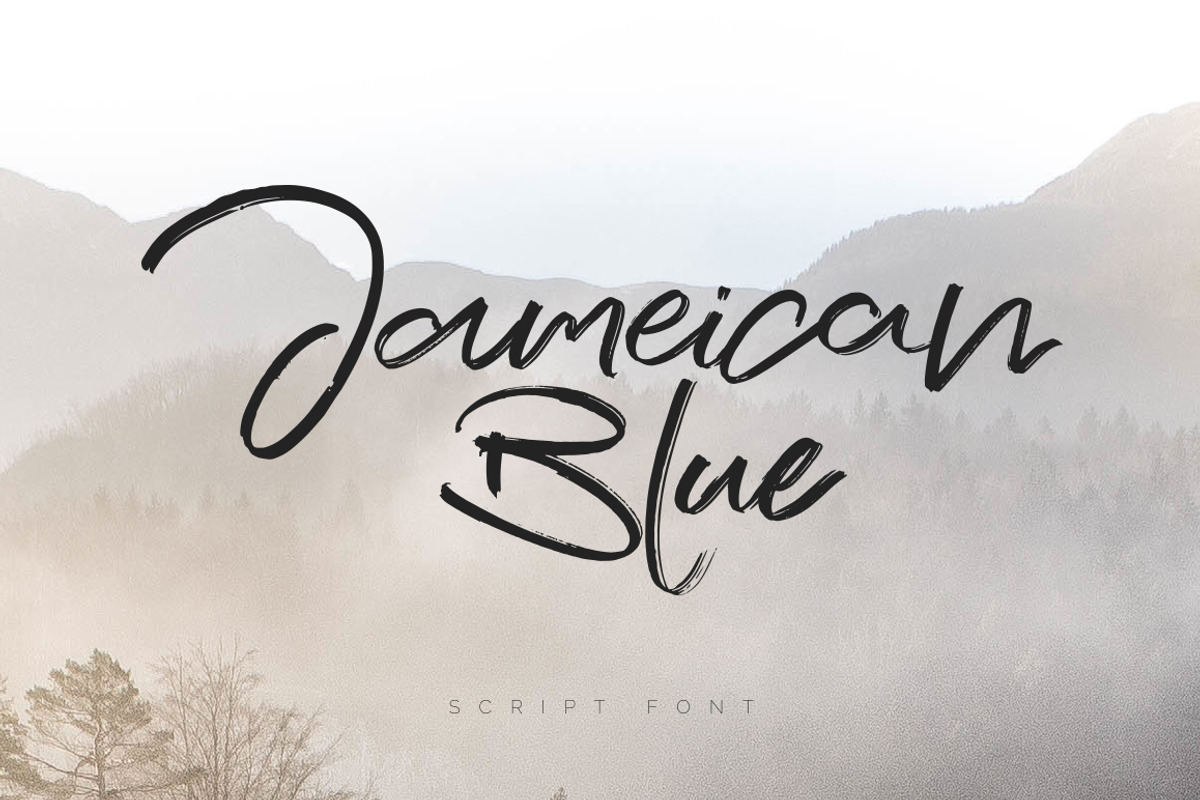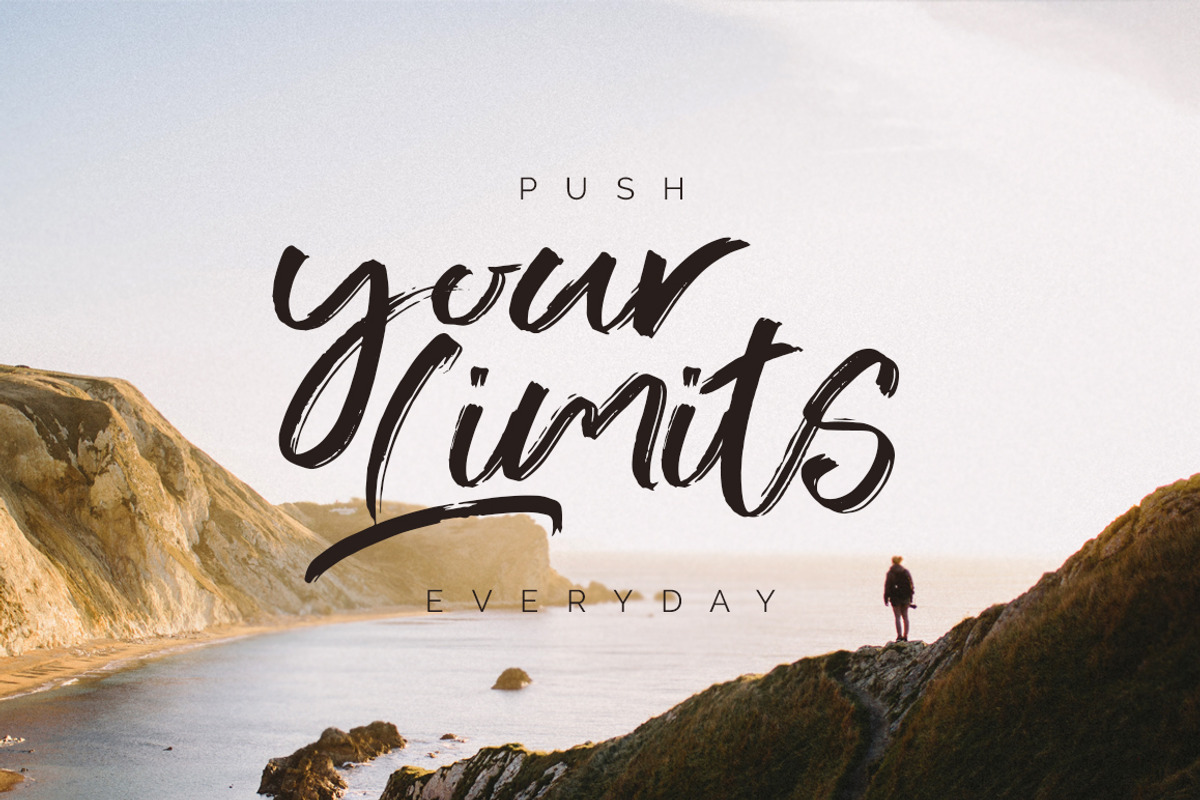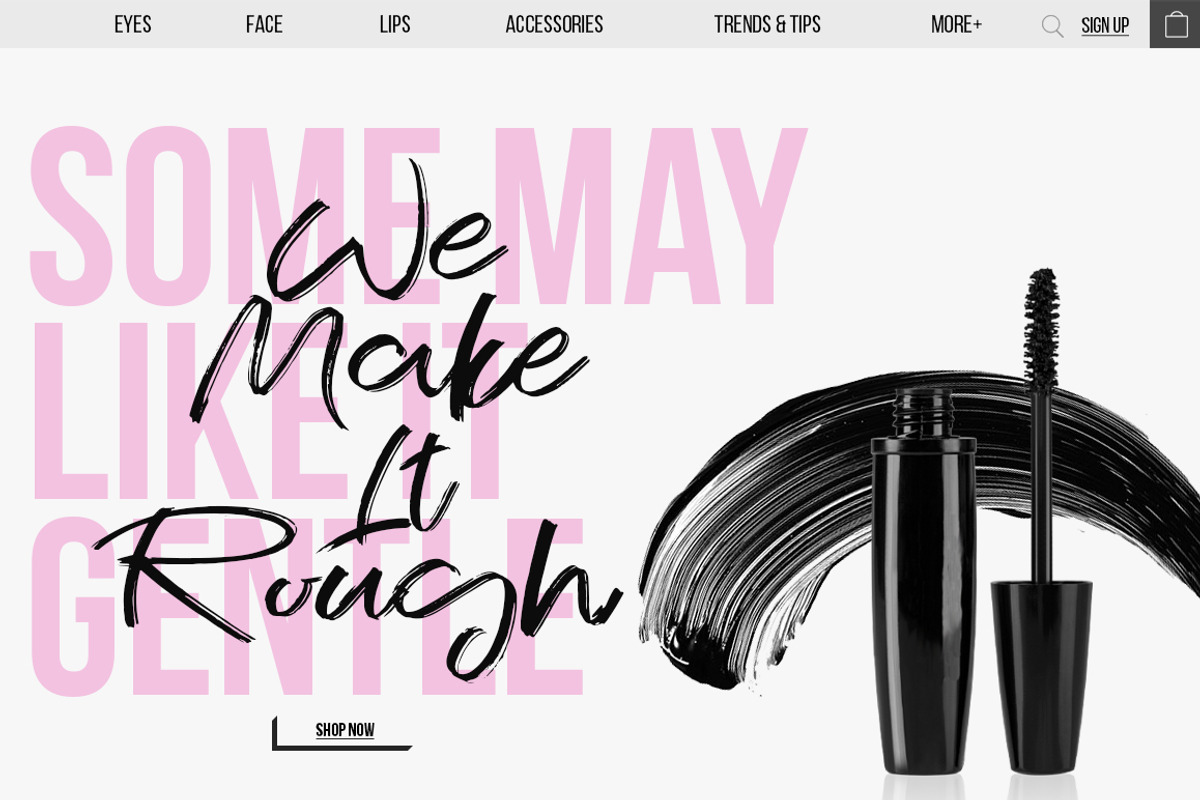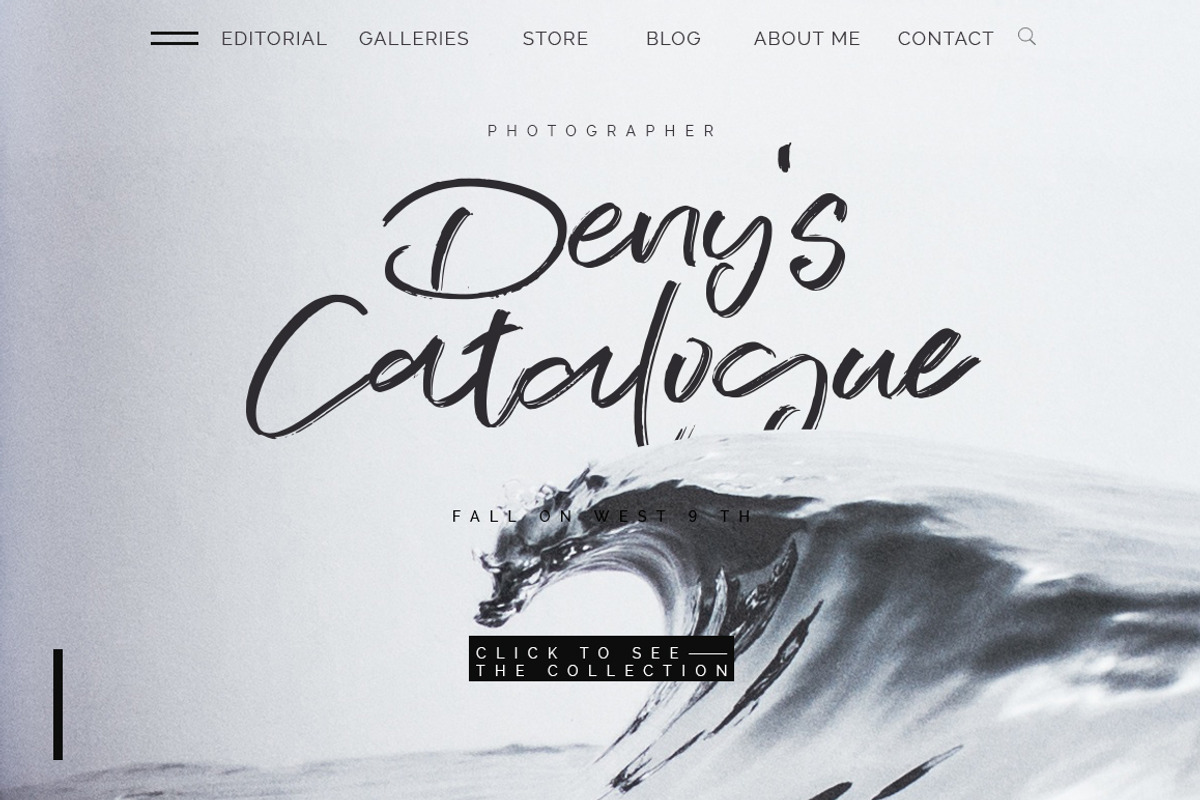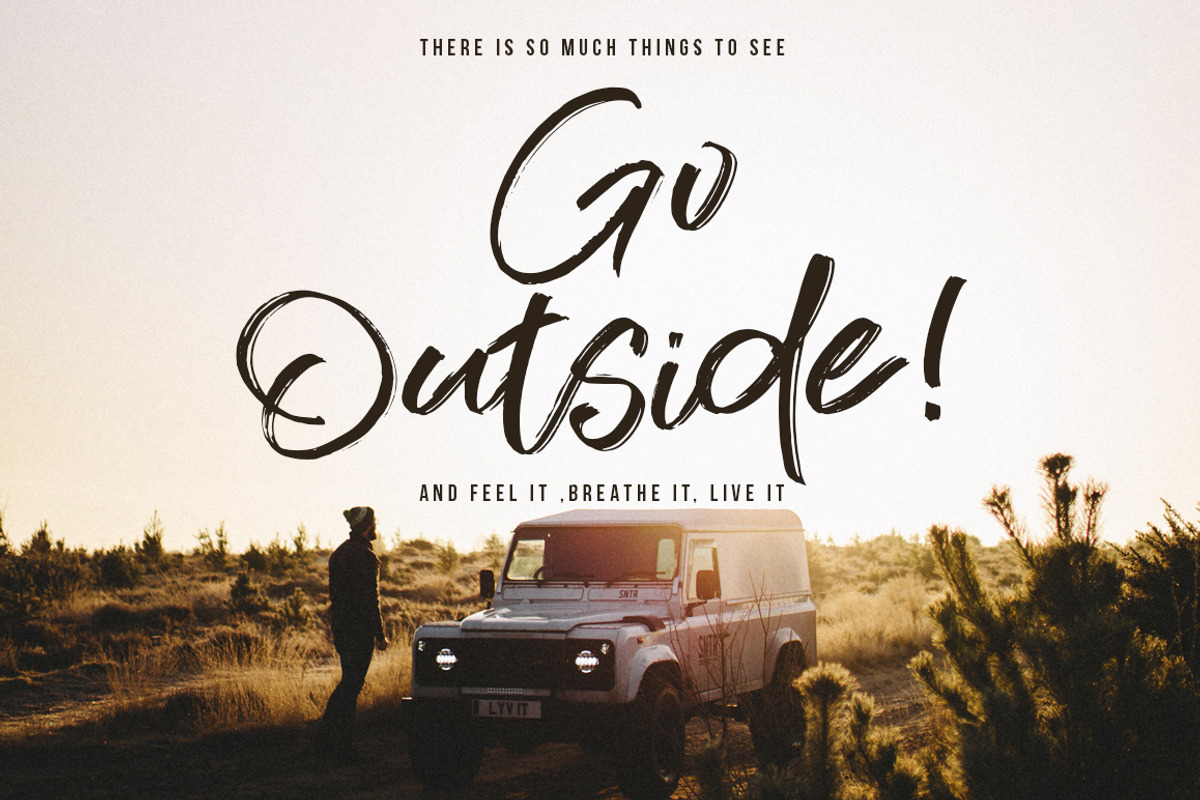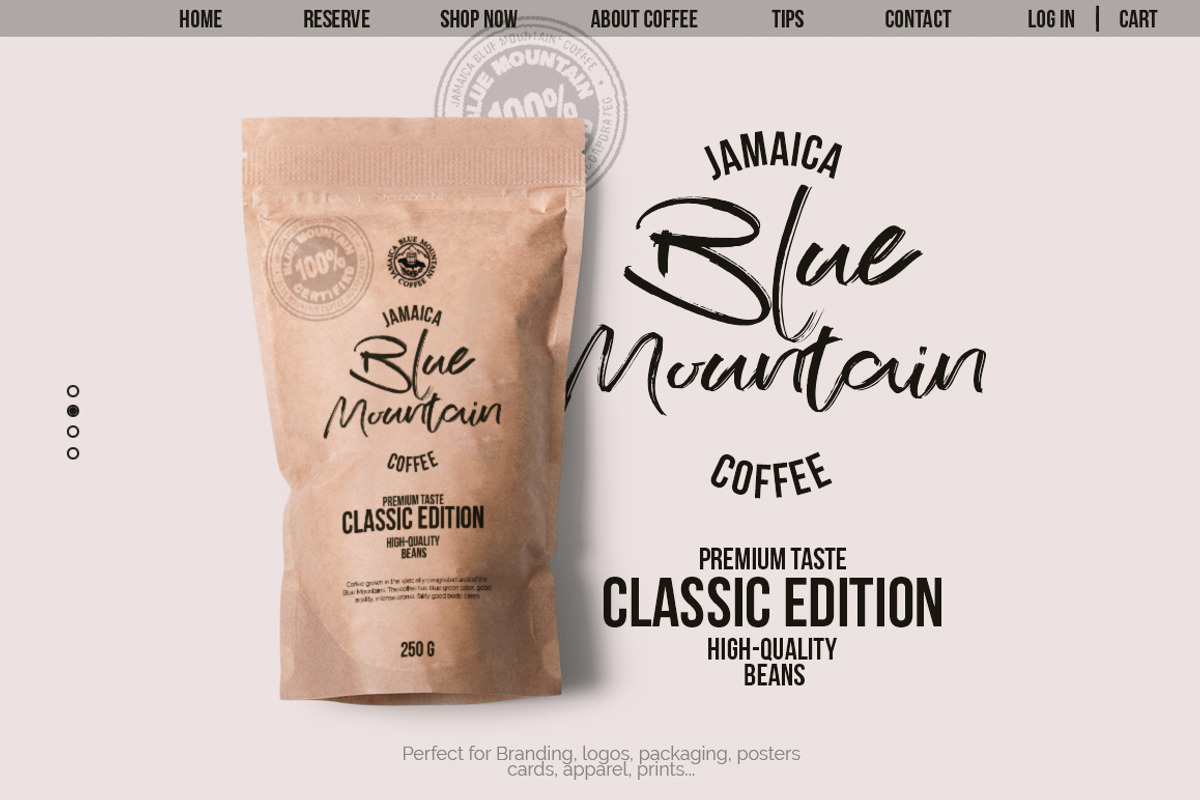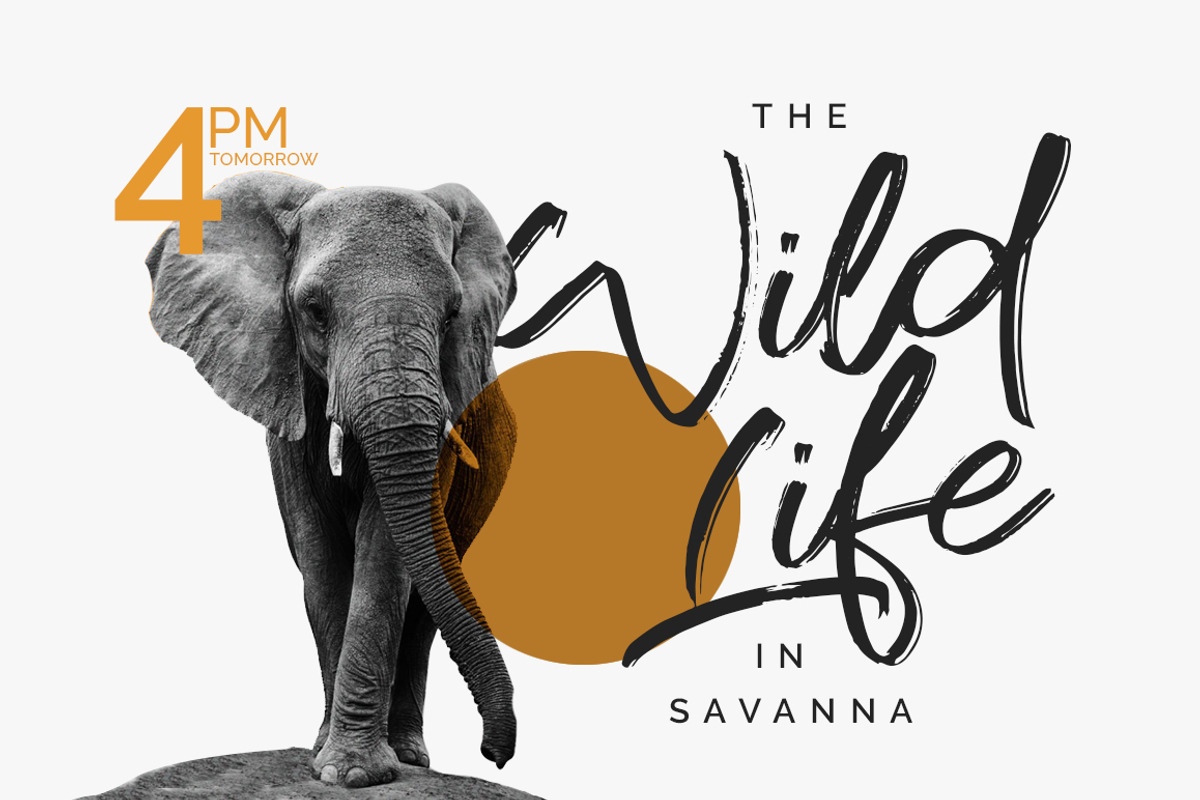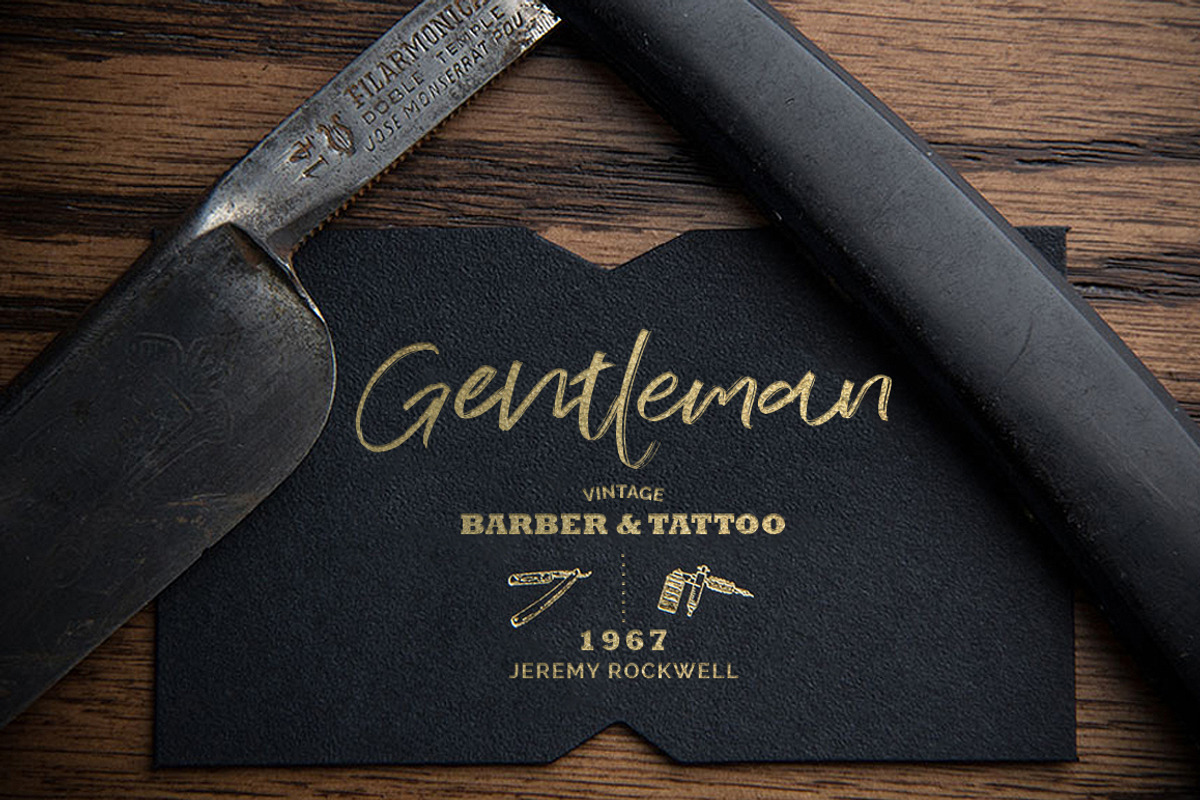
Jameican Blue Font
Jameican Blue Font by Yasir Ekinci is a font selected for branding, posters, packaging, typography.
- Also Jameican Blue has Stylistic Alternate Characters.
- So you can enhance the typography with different characters.
Why Jameican Blue Font is worth a look
Jameican Blue Font by Yasir Ekinci fits naturally into Branding, posters, packaging, typography.